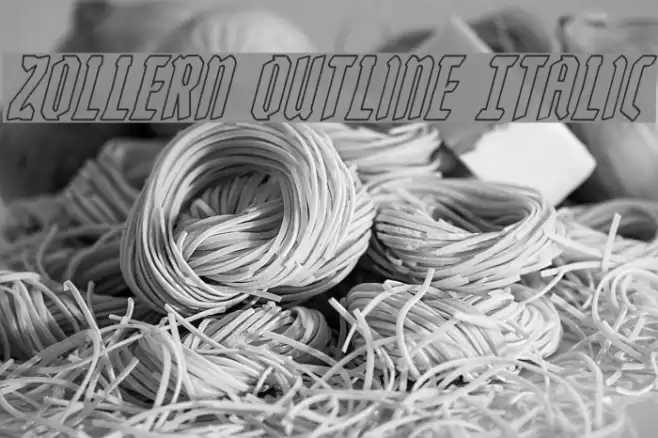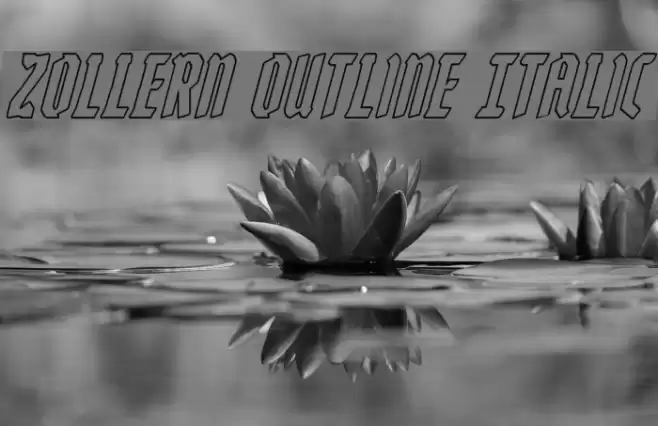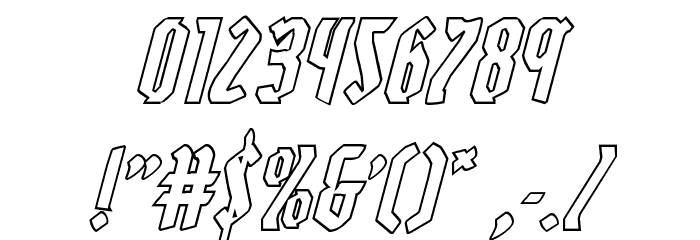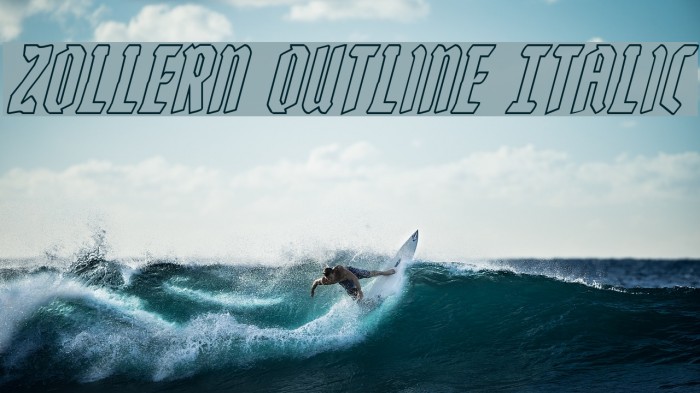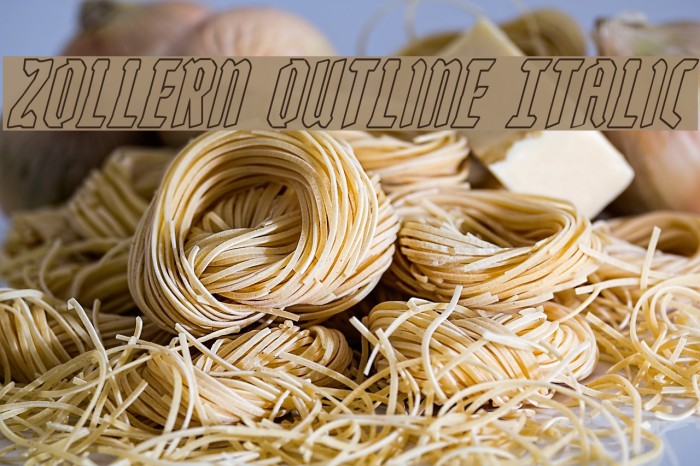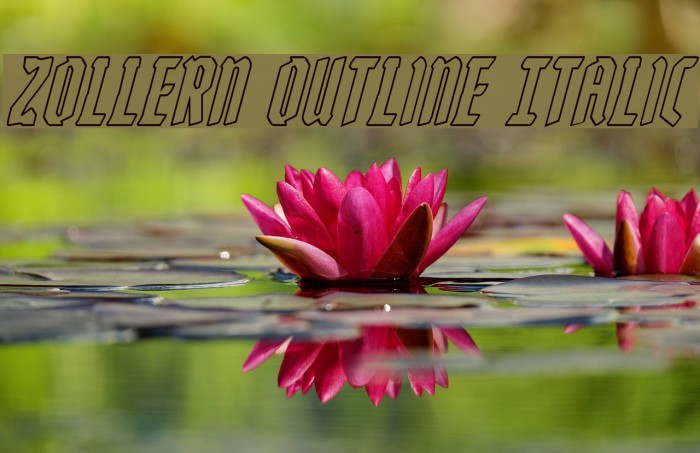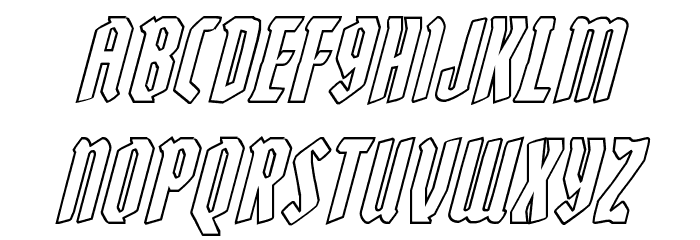
Zollern Outline Italic Font
Zollern Outline Italic Description
This font features a bold, outlined style with a distinct italic slant, giving it a dynamic and modern appearance. The characters are sharply defined with angular edges, creating a sense of movement and energy. The uppercase and lowercase letters maintain a consistent style, with the uppercase being more prominent and commanding. Numbers and special characters follow the same outlined and italicized design, ensuring uniformity across all glyphs. The font's unique outline effect makes it stand out, suitable for eye-catching designs.
A bold, outlined, italic font with angular edges and a modern look from Uncategorized fonts.
- Proposed Projects: Ideal for posters, logos, and headlines where a striking and modern appearance is desired.